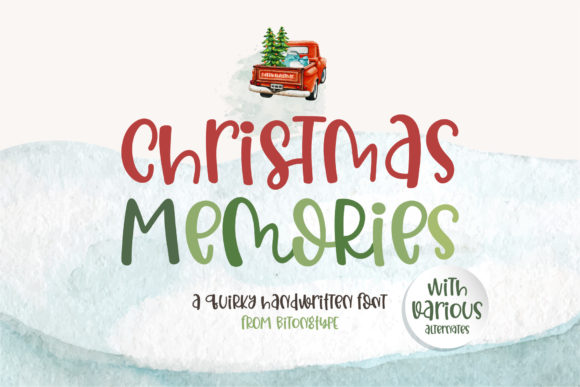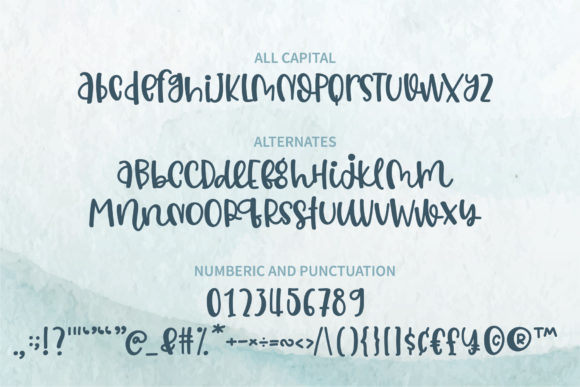
About Christmas Memories Font
Christmas Memories is a quirky and laid-back handwritten font. Whatever the topic, this font will be a wonderful asset to your font library, as it has the potential to enhance any creation. Christmas Memories is PUA encoded which means you can access all of the amazing glyphs and ligatures with ease!